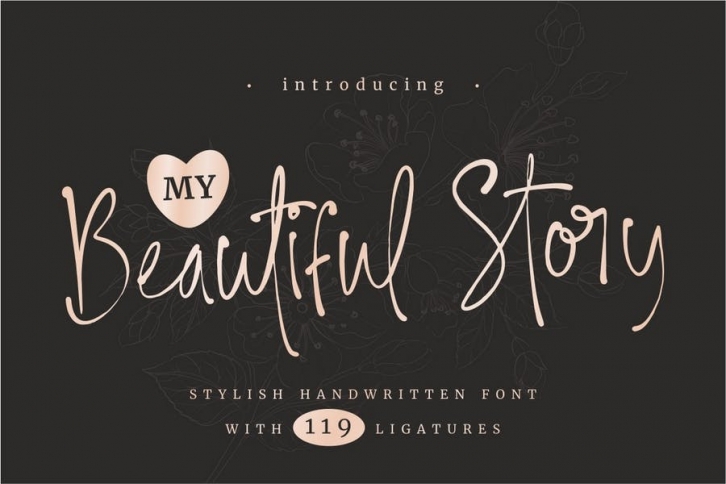
Introducing a beautiful stylish handwritten font called "My Beautiful Story". This font has been designed from recreate natural handwritten text include 119 custom ligature and beautiful swash, its help you to make great lettering. My Beautiful Story best uses for signature, wedding, invitation, heading, cover, poster, logos, quotes, product packaging, header, merchandise, social media & greeting cards and many more. This font is also support multi language.